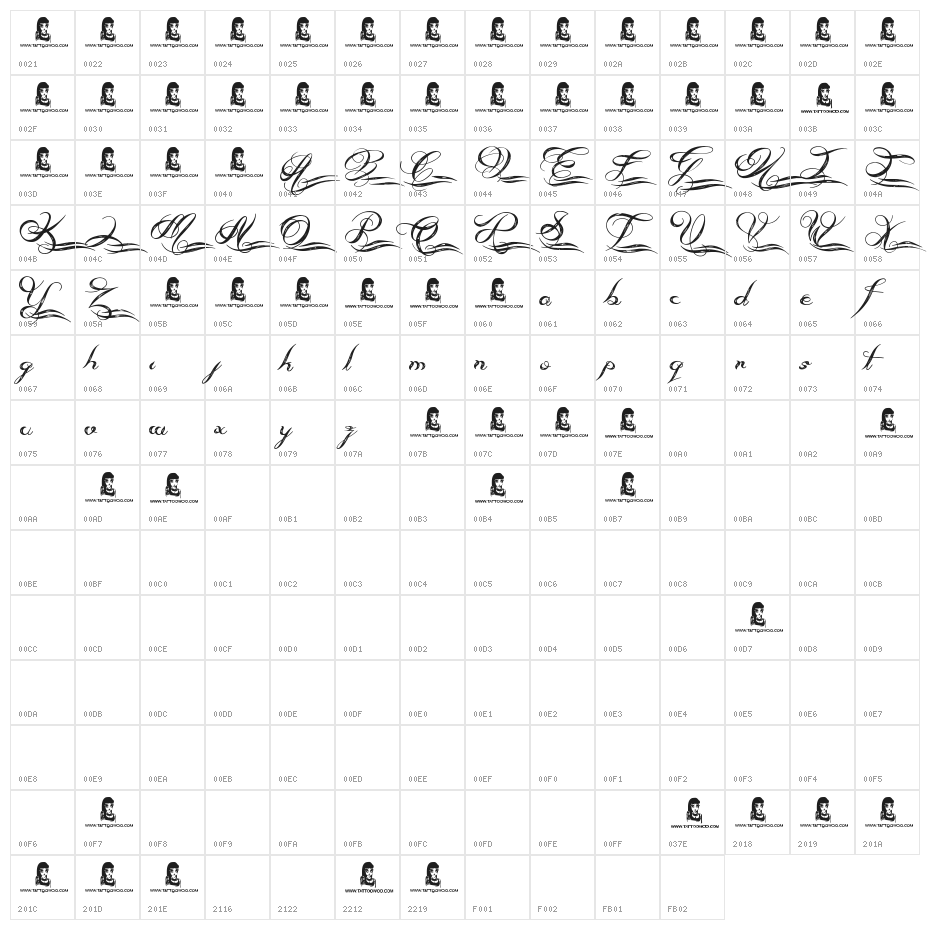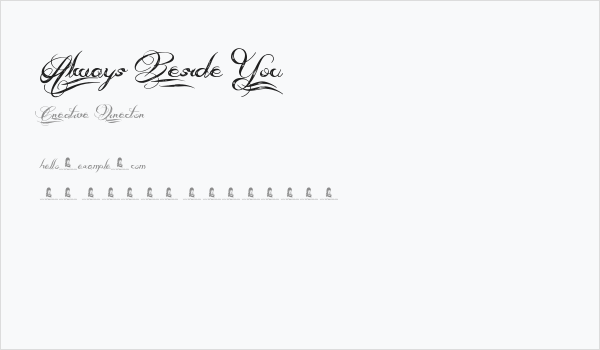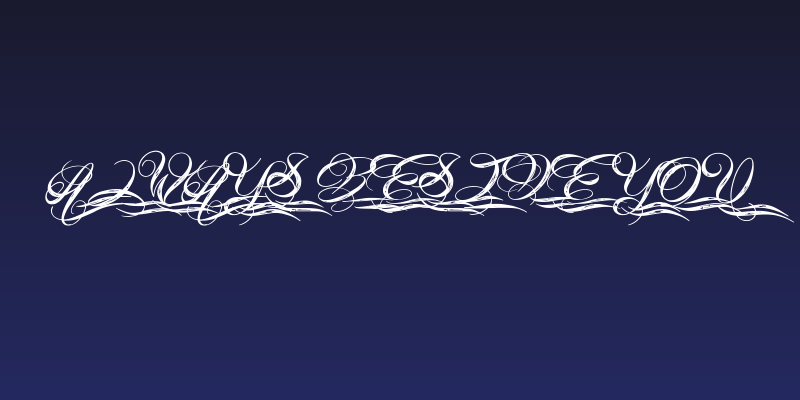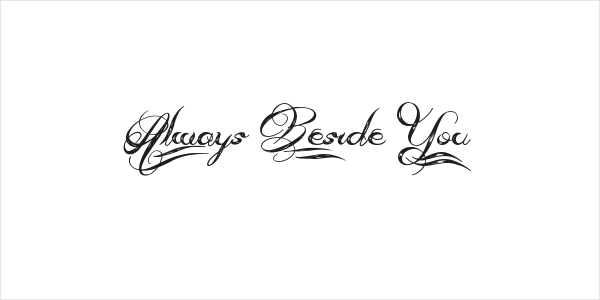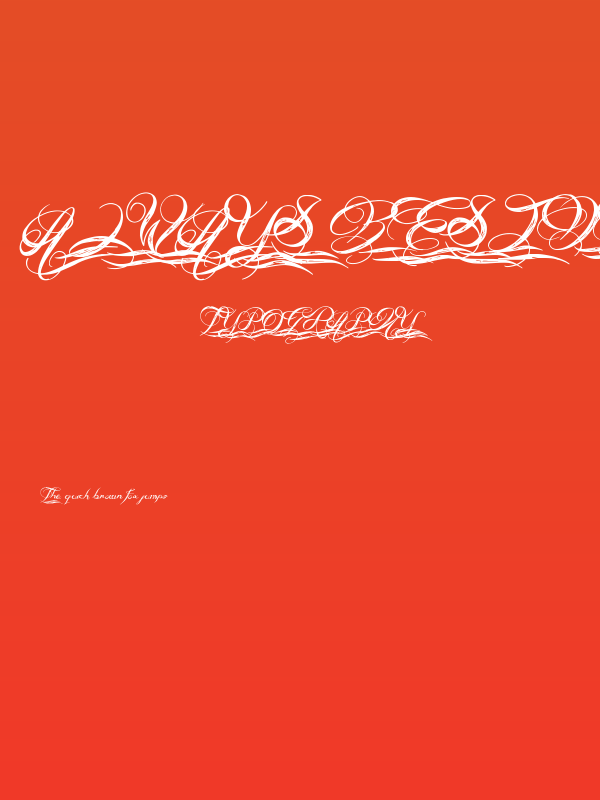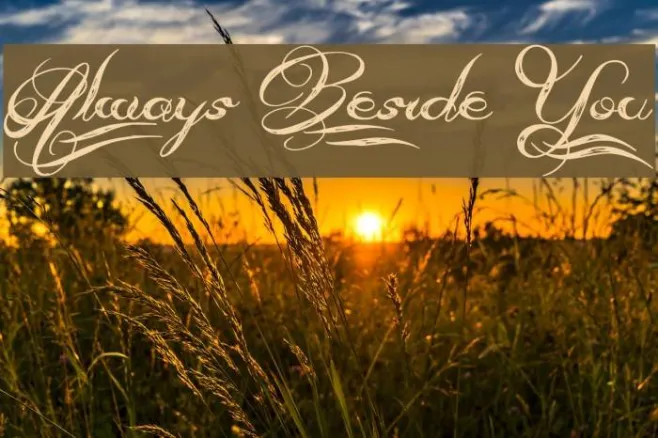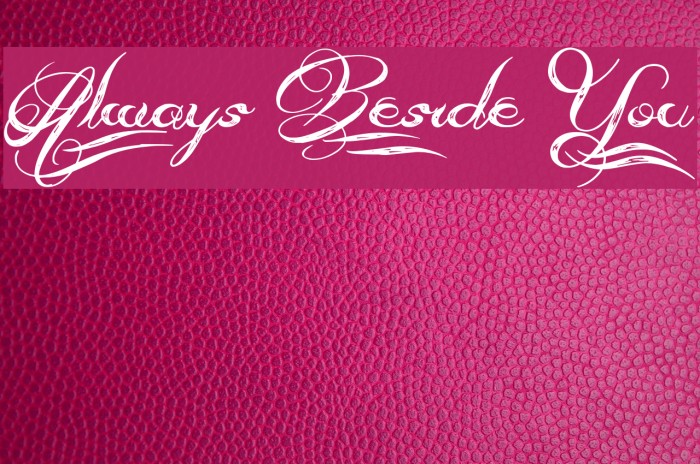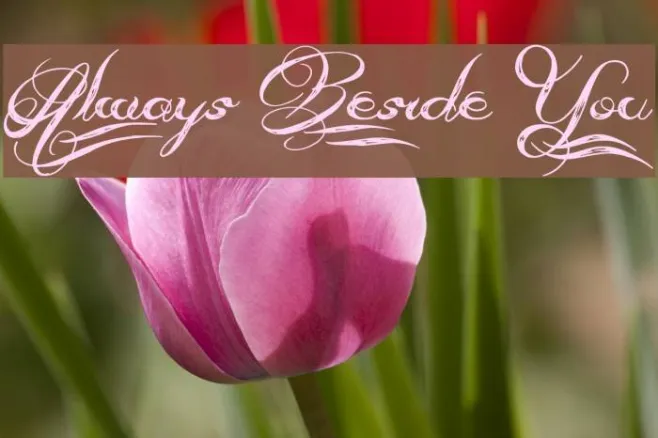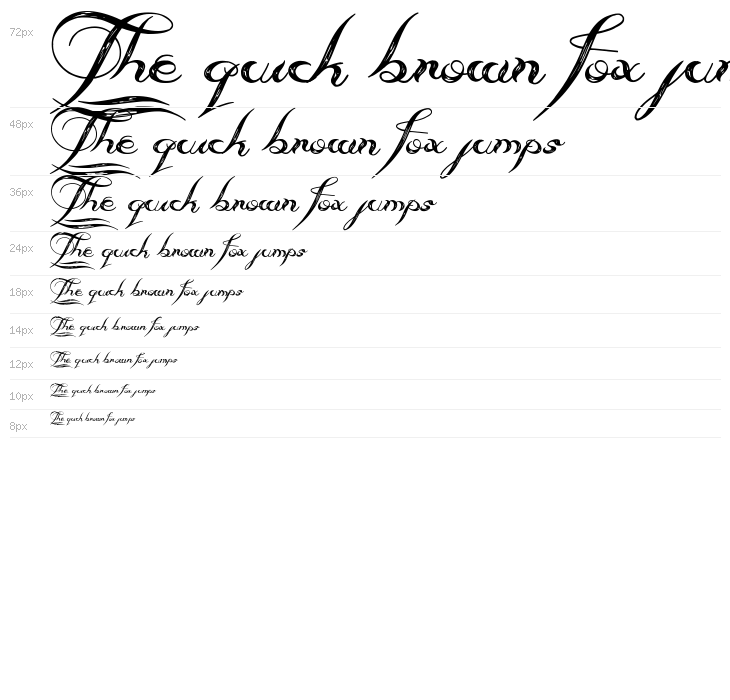
Always Beside You Font
Always Beside You Description
This font features an intricate and elaborate script style, characterized by its flowing, interconnected letters and ornate flourishes. The uppercase letters are particularly decorative, with extensive loops and swirls that give a sense of elegance and sophistication. The lowercase letters maintain a consistent style, with smooth curves and a slightly slanted orientation, enhancing the handwritten feel. The font's overall appearance is both artistic and expressive, making it suitable for projects that require a touch of elegance and creativity. The characters are tightly spaced, which adds to the cohesive look of the text.